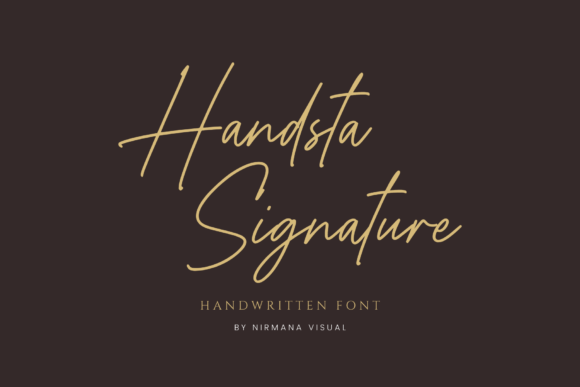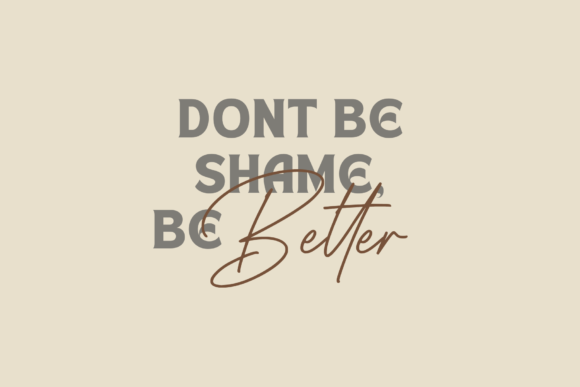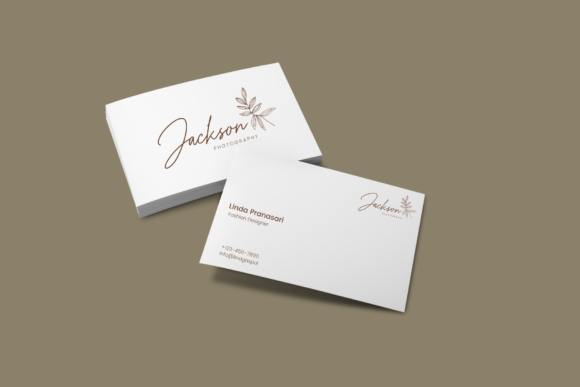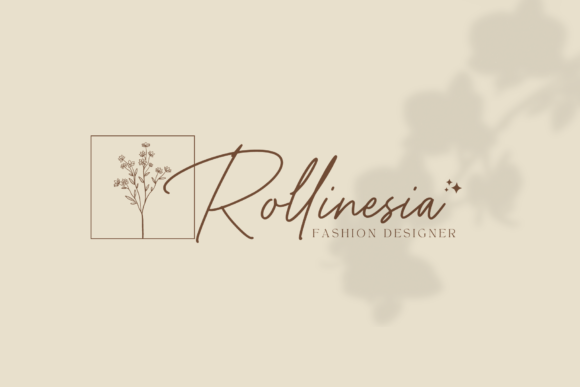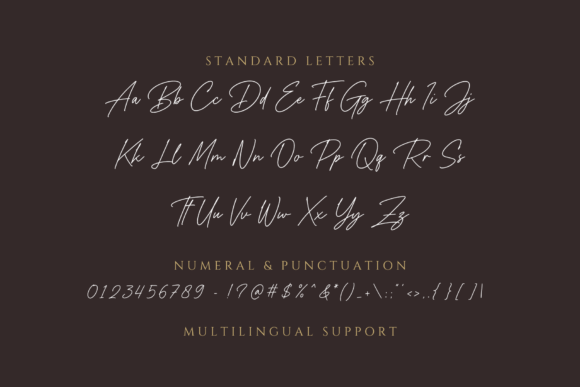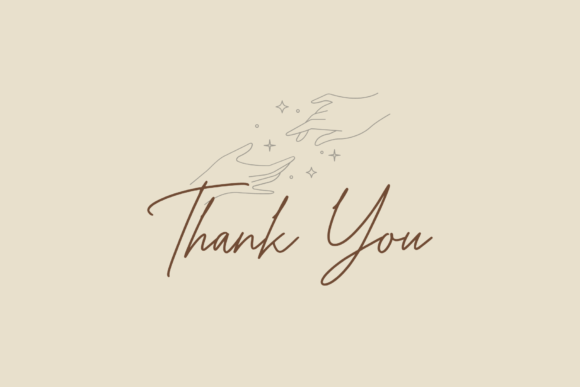
Handsta Signature Font
Handsta Signature is a beautiful script font carefully created with a touch of romance.
This is a beautiful combination of timeless elegance and authentic calligraphy.